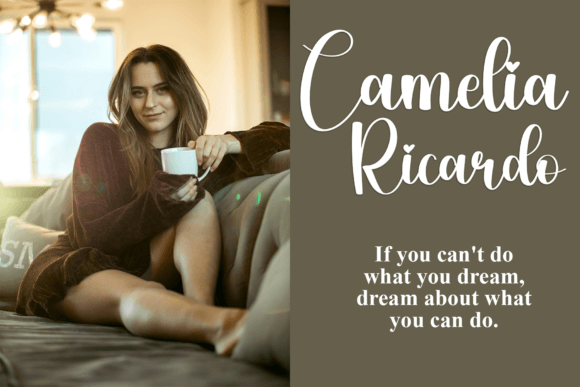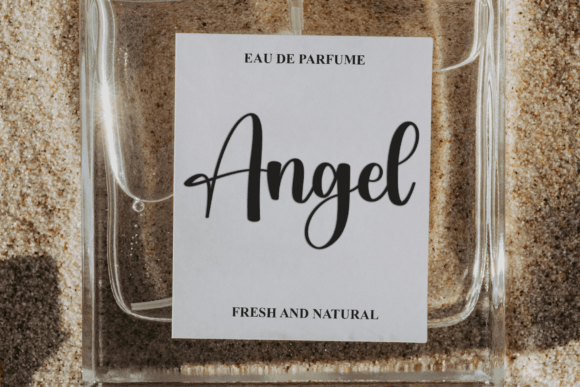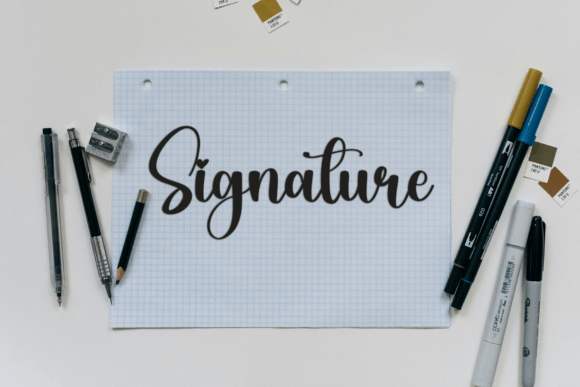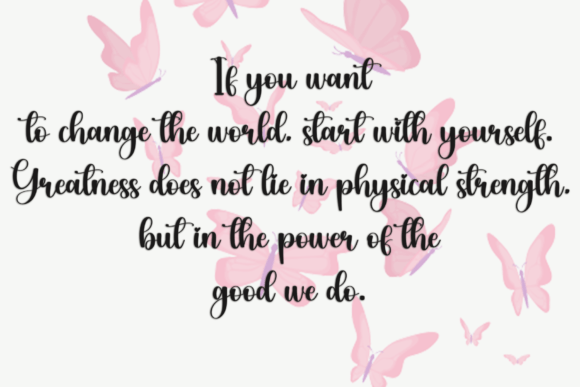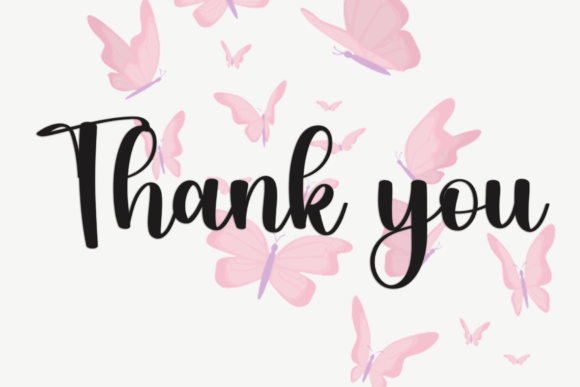
The Perfect Touch of Whimsy: Unveiling the Butterfly Font
Have you ever been inspired by a beautiful handwritten note or a charming wedding invitation? I know I have. There’s something special about the imperfections and personal touch that comes with a handwritten script. As a designer, I’m always on the lookout for fonts that capture that same essence, and that’s where the Butterfly Font comes in.
This stunning script font is designed to add a touch of elegance and sophistication to any design project. Whether you’re creating wedding invitations, thank you cards, or business cards, the Butterfly Font is the perfect choice to give your design a handwritten touch. With its beautiful curves and fluid lines, this font is a valuable asset for any designer looking to add a personal and whimsical touch to their work.
Key Features of Butterfly Font
- Font Family: Butterfly Font is a unique, hand-drawn font that features elegant and delicate letterforms.
- Unique Characteristics: The font’s distinctive features include swashes, flourishes, and subtle variations in letter spacing, adding a touch of sophistication and elegance to any design.
Butterfly Font Review
I’ve had the chance to work with the Butterfly Font, and here’s my honest take.
- Elegant and whimsical design that adds a touch of magic to any project.
- Perfect for creative and artistic projects that require a unique and playful feel.
- Well-suited for use in branding and marketing materials, especially for companies that want to stand out.
- May not be suitable for projects that require a more formal or professional tone.
- Can be quite ornate, making it difficult to read in smaller font sizes or at a distance.
- Lack of versatility in terms of font weights and styles, which may limit its use in certain projects.
Overall, the Butterfly Font is a beautiful and unique addition to any designer’s toolkit. While it may not be suitable for every project, it’s perfect for those that require a touch of whimsy and elegance. With some careful consideration of its limitations, I’d highly recommend giving it a try.
Some tips for getting the most out of the Butterfly Font include using it for wedding invitations, baby shower invitations, or other special occasion designs. You can also use it for branding and logo design, especially for businesses that want a whimsical or feminine look.